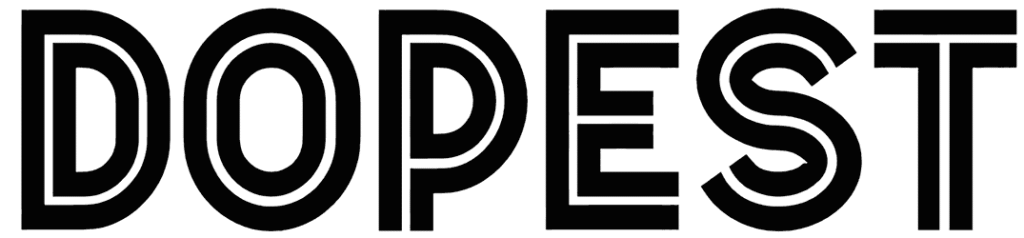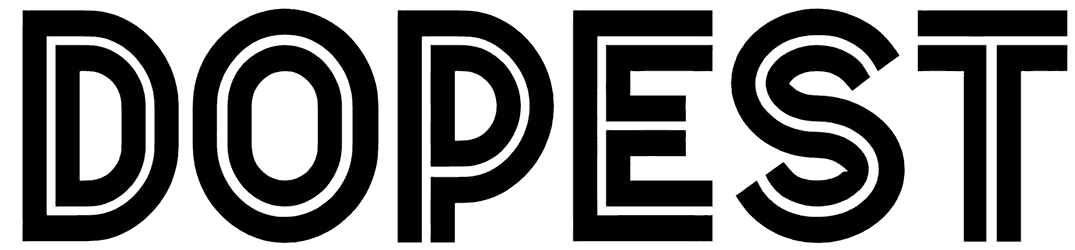
Dopest Font
Beyond your imagination, Dopest can revolutionize your artwork, such as posters, packaging, social media posts, logos, and magazines. This modern-looking retro font offers four distinctive styles to graphic designers and helps them to add a little bit of variety to their graphic content. Considering its ability to establish a sense of professionalism, dynamic, futuristic, and whimsical, the lack of lowercase letters would be ignored.
DOPEST by MARSNEV
this is my experimental font, so the characters are not complete yet.